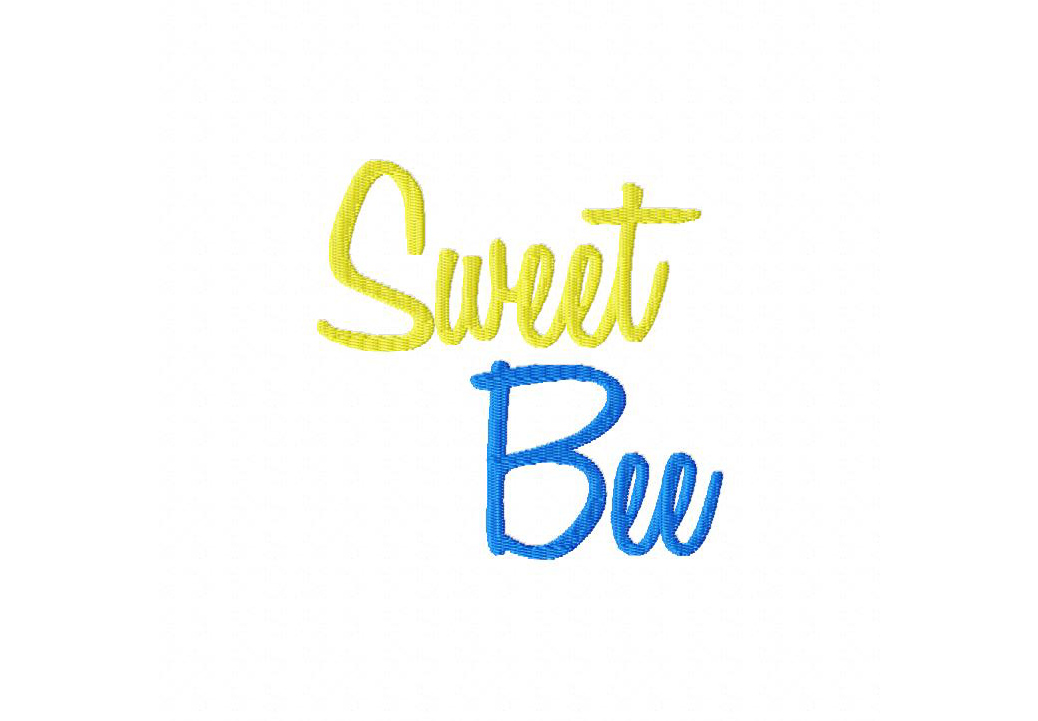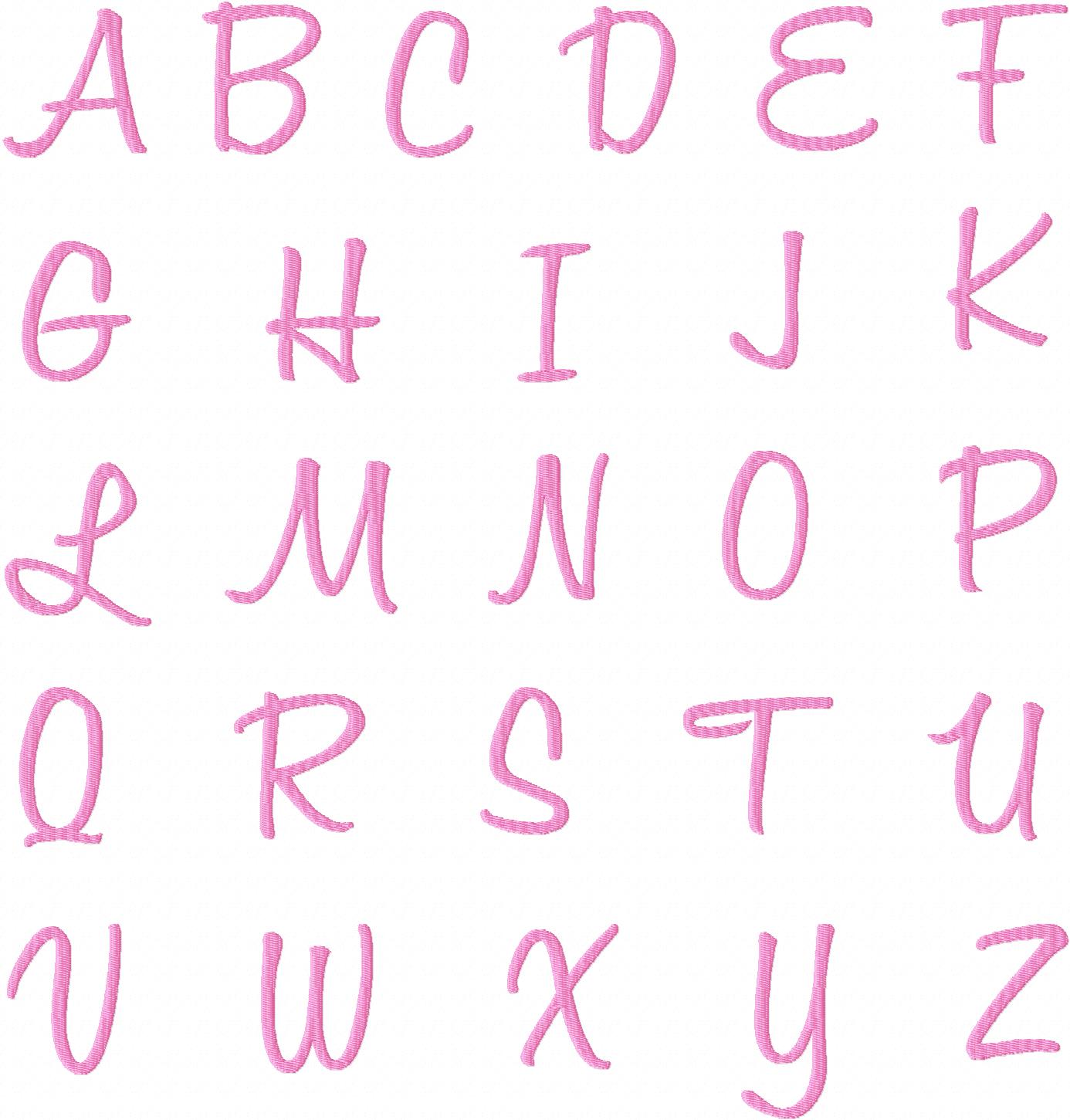
Today's totally cool font is a full featured set of lovely letters ready to personalize your next project. Sweet and Stylish this is a very versatile machine embroidery font set that can go with anything! Download it for Gold Members only.
The Sweet Bee font includes Uppercase and Lowercase Letters, Number and bonus punctuation and includes sizes 1" 2" and 3" all in a fill stitch